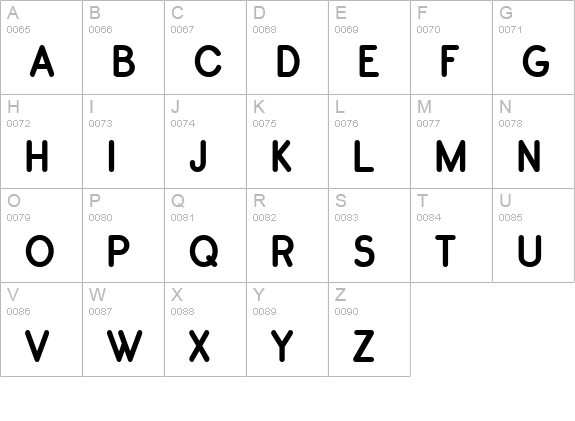
CennerikEBold Font Details
CennerikEBold font is a bold and eye-catching typeface that exudes confidence and modernity. Its sharp lines and sleek design make it perfect for headlines, titles, and branding projects that require a strong and impactful aesthetic. The bold weight of this font ensures that your message will stand out and command attention. What sets CennerikEBold font apart is not only its striking design but also the fact that it is available for free download at FontsMarket.com. This means that you can easily access this high-quality font without any cost, making it a valuable resource for designers, creatives, and anyone looking to elevate their projects with a stylish and contemporary typeface. Whether you are working on a poster, website, logo, or any other design project, CennerikEBold font can help you make a bold statement and leave a lasting impression. Download it for free today and take your designs to the next level with this versatile and dynamic typeface.